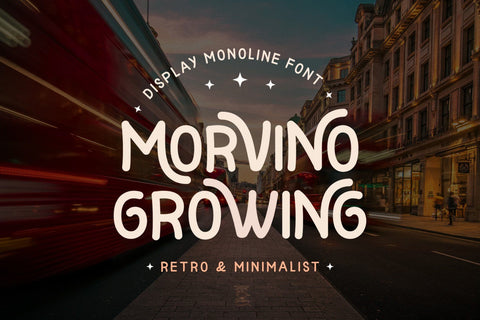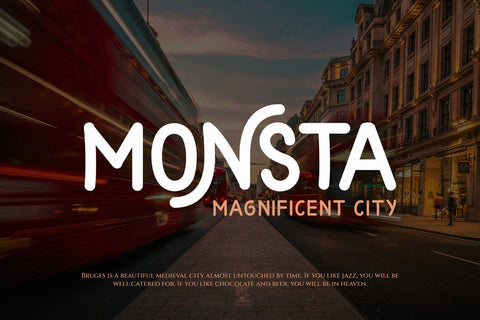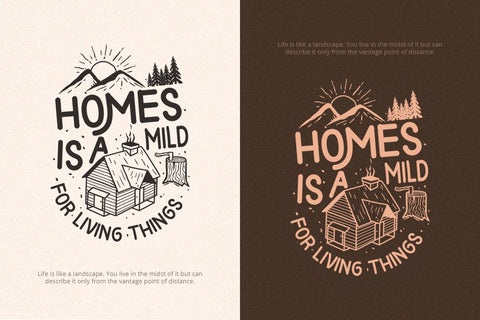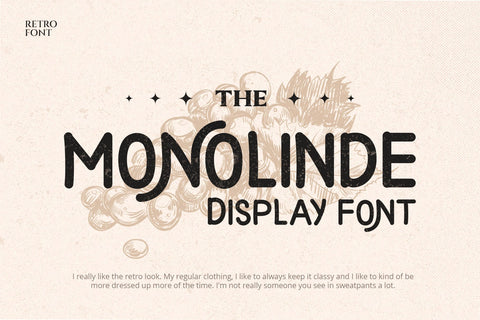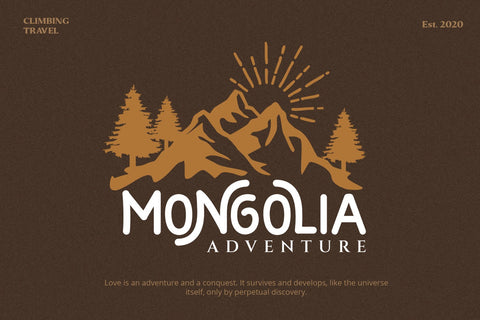
Morvino Growing - Retro Monoline font
Morvino Growing
is a display font. This font can be used for products such as baby necessities, crafts, product packaging, quotes, product designs, craftsmen, labels, photography, watermarks, logos & branding. Everything can be accessed using software that supports Opentype, such as Adobe Indesign, Adobe CS Illustrator, Adobe Photoshop CC, and Corel Draw.